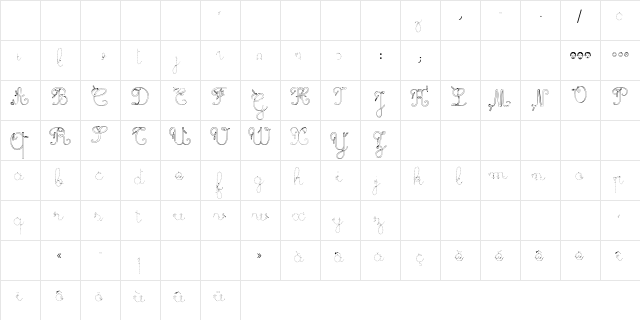
Maternellecolor trace cursive Regular Font Preview
Maternellecolor trace cursive Regular
Maternellecolor trace cursive Regular Font Details
Design Context for Maternellecolor trace cursive Typeface
Maternellecolor trace cursive flows with the natural rhythm of handwritten lettering, making it ideal for designs that call for warmth and personal expression.
Font Pairing: Combine Maternellecolor trace cursive with a simple geometric sans for maximum contrast — the tension between flowing curves and clean structure is a classic typographic pairing.
Pro Tip: Pair Maternellecolor trace cursive with a clean sans-serif for supporting text. The contrast between fluid script and geometric structure creates an elegant typographic hierarchy.